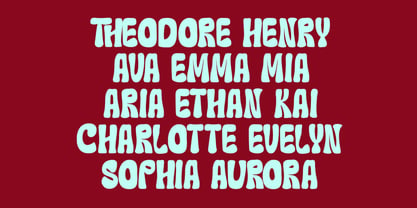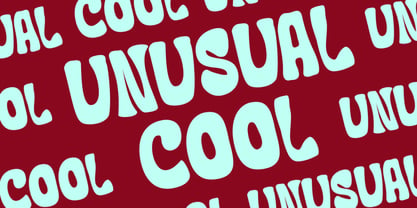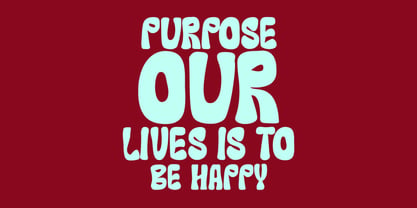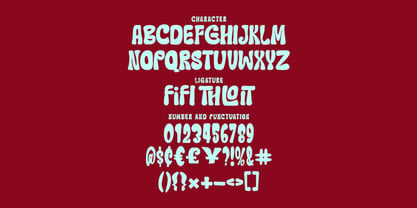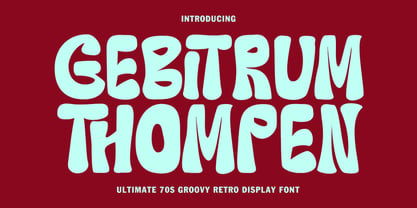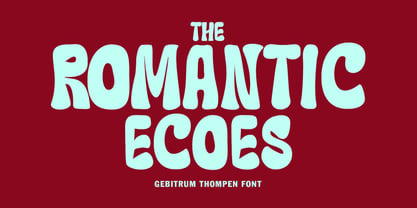
Mc Gebitrum Thompen
by Maulana Creative
The Mc Gebitrum Thompen Font Family was designed by Gilang Maulana and published by Maulana Creative. Mc Gebitrum Thompen contains 1 styles. More about this family
Unleash the spirit of the 70s with Gebitrum Thompen! This brand new display font is a nostalgic trip back to the era of peace, love, and bold design. Gebitrum Thompen features irresistibly chunky, rounded, and playful letterforms that capture the authentic groovy aesthetic. It's the perfect typeface to inject a burst of vintage energy and fun into your creative projects. Key Features: - Authentic Retro Style: Perfectly designed to evoke the classic 1970s mood. - Unique Display Font: Its bold, playful character ensures your text stands out. - Versatile Use: Ideal for album, branding, merchandise, designs, social media graphics, and striking headlines. - Full of Personality: The distinctive rounded edges and unique weight create a memorable and friendly visual impact. - Includes Ligatures: Enhanced typography with stylish, custom ligatures for an extra layer of design flair.
Designers: Gilang Maulana
Foundry: Maulana Creative